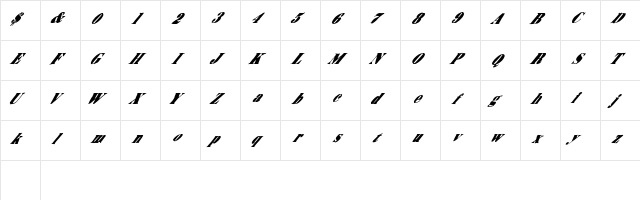
BreakingNews Regular
| Foundry | Xerographer Fonts |
| Designer | Xerographer Fonts Max Infeld |
Design Context for BreakingNews Typeface
BreakingNews is a composed and adaptable typeface that performs quietly and consistently across a wide range of design contexts.